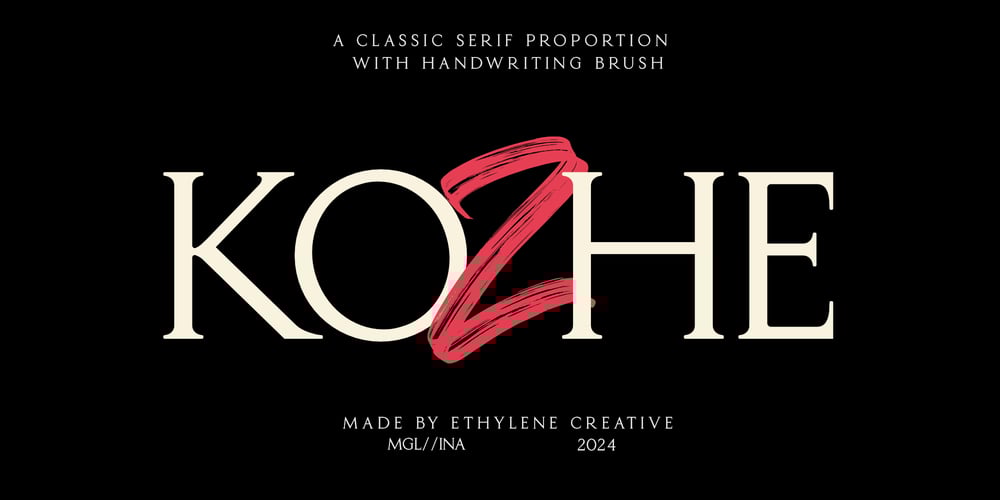
Kozhe Font Family was designed by Cherly Nugroho and published by Ethylene. Kozhe contains 1 styles and family package options. Kozhe is a fusion of serif typeface combine with hand drawn brush style. the serif, we make it classic proportion to give vintage and elegant feel. With just 1 typeface, you can get 2 styles.This typeface is suitable for your various design needs. such as posters, book and magazine covers, packaging, merchandise, label, menu book, YouTube thumbnail, social media post, streetwear and so on.Use this display typeface to add a special touch to any design idea you can think of!